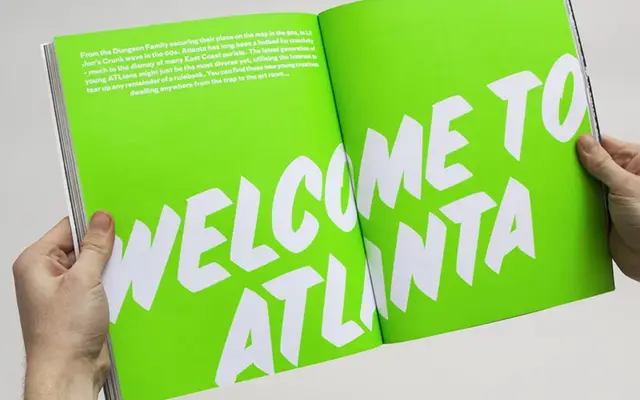
Sideshow specimen from The Designers Foundry
A single-weight display face by letterer Drew Melton, drawn from historic sign painting traditions around Los Angeles.
Designed by Drew Melton, a Los Angeles-based graphic designer and letterer with clients including Nike and Penguin Books, it draws directly from vernacular sign painting references across the city. A Stylistic Set offers alternate letterforms, and the glyph set of 172 characters covers a broad range of Latin-based languages. Best suited to branding, packaging and editorial work where a hand-lettered Americana quality is wanted.
Inspired directly by historic sign painting traditions around Los Angeles, Sideshow is a display typeface with vernacular lettering roots rather than any conventional type classification.